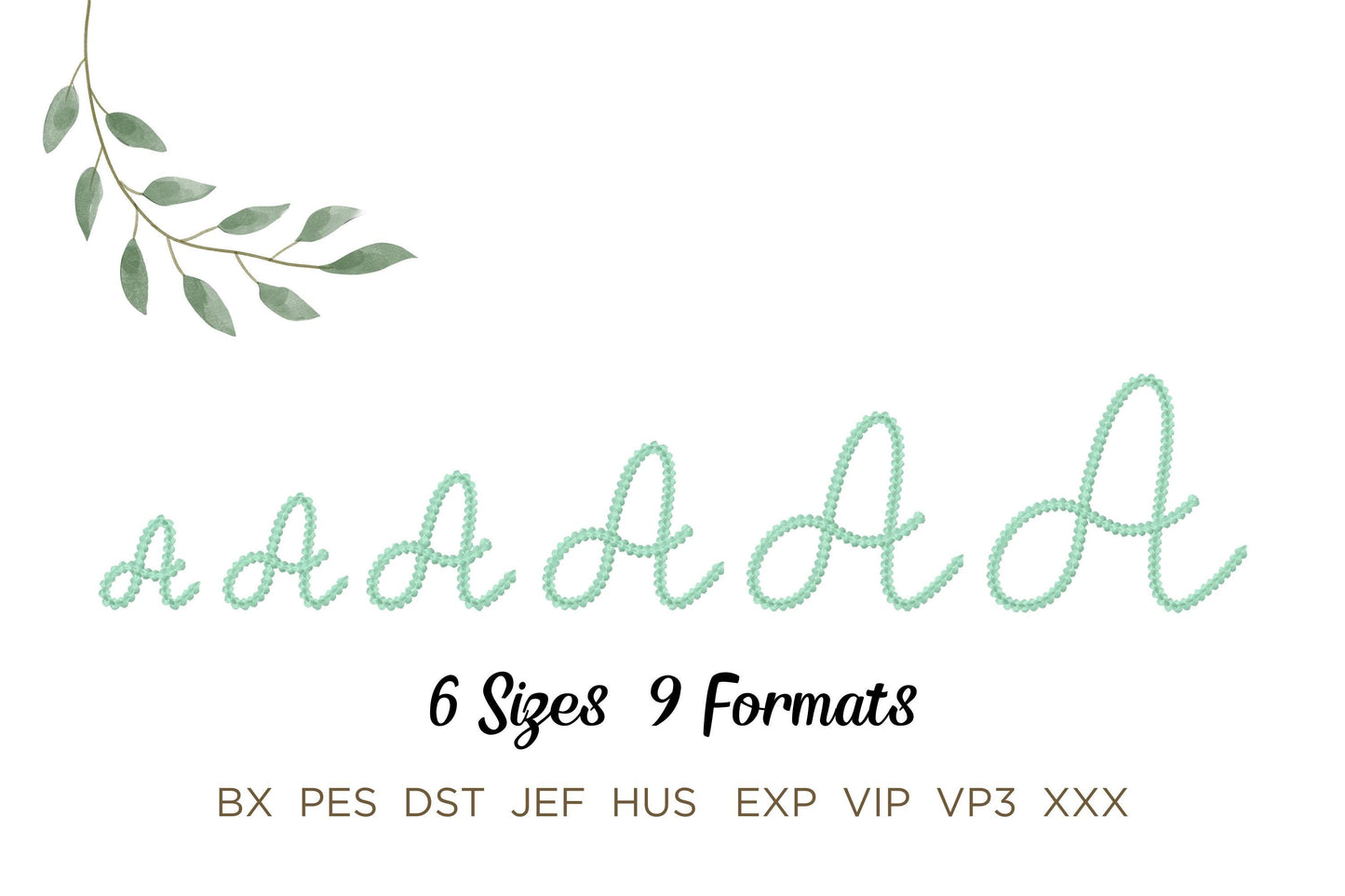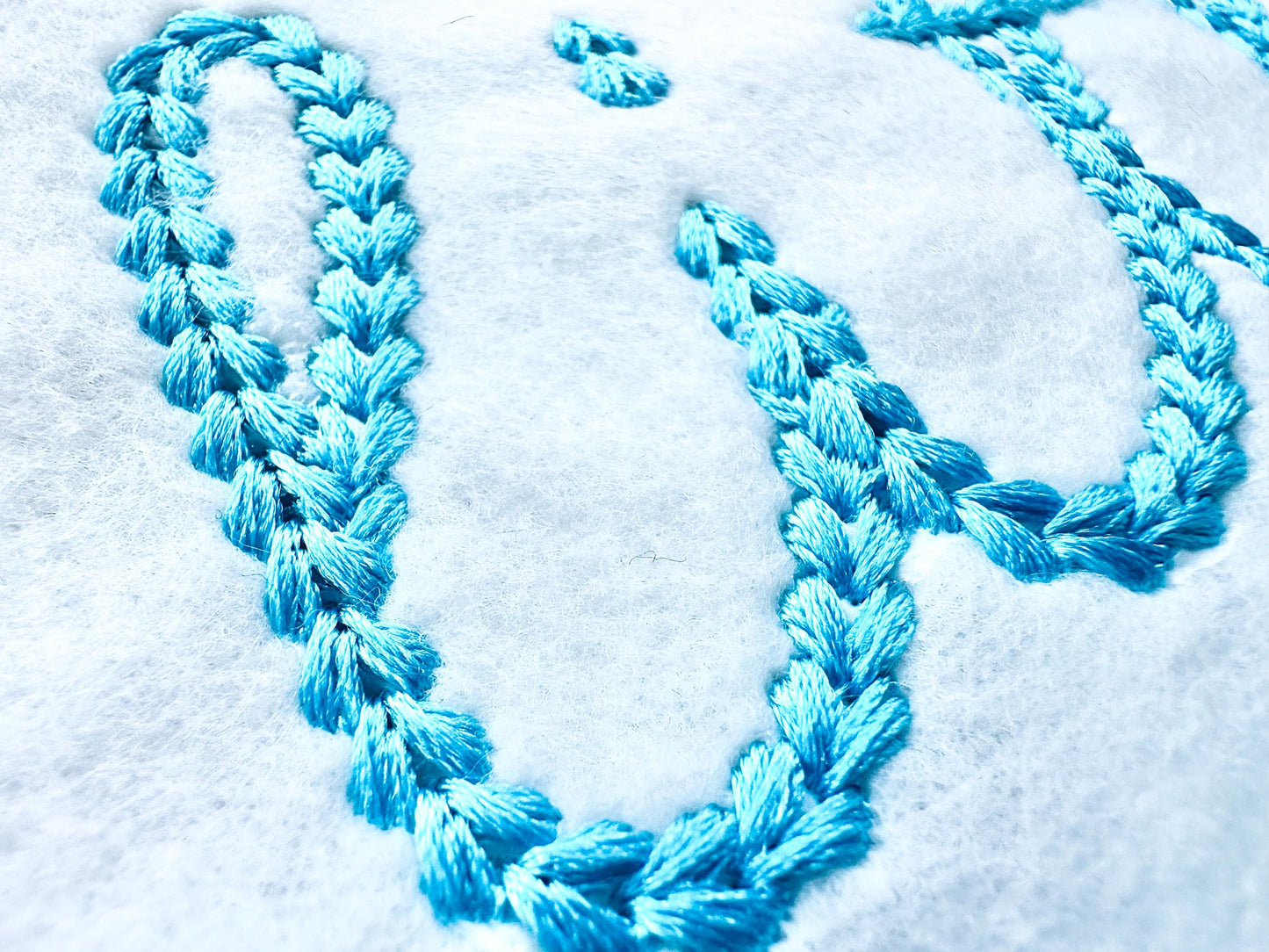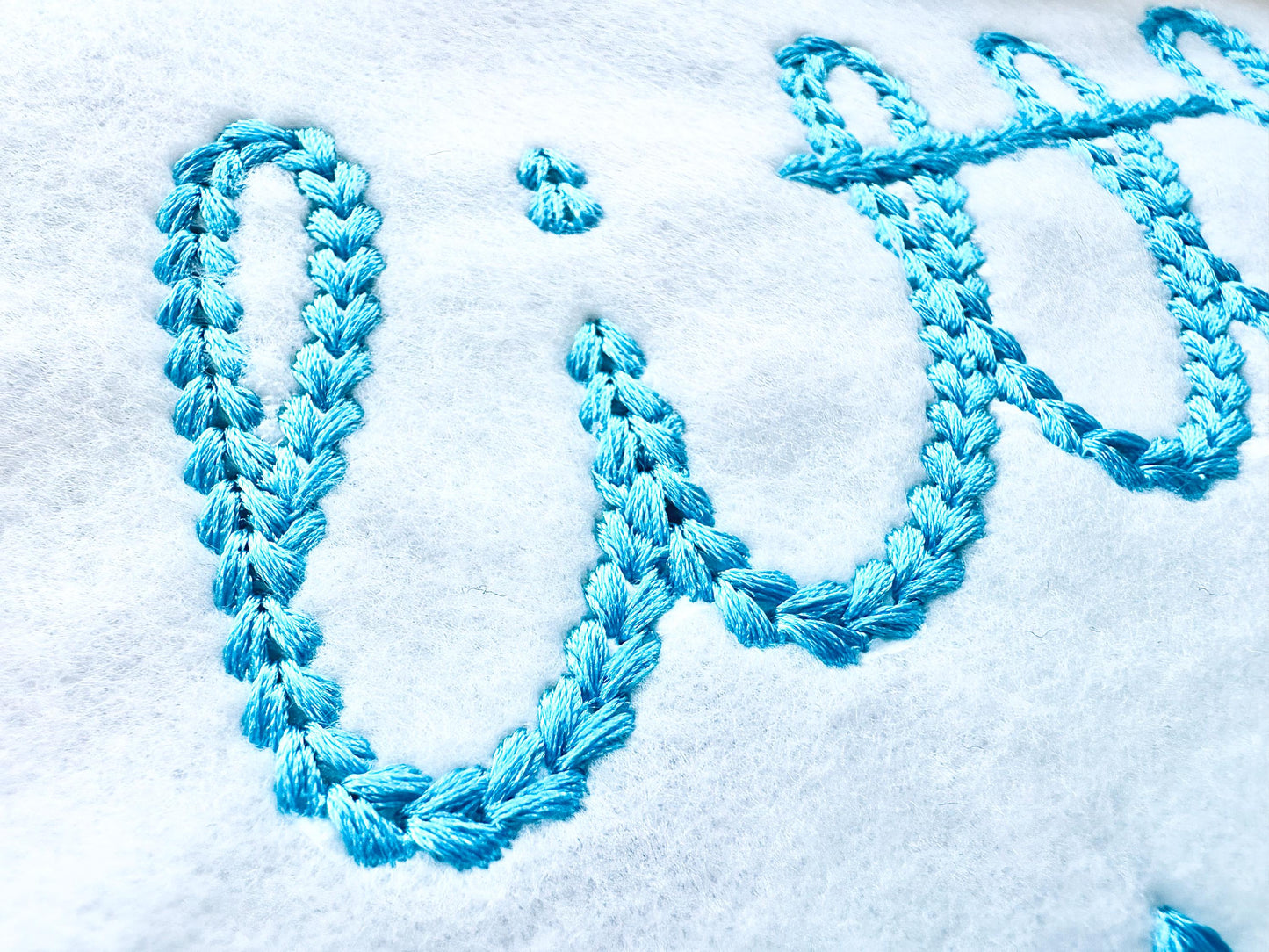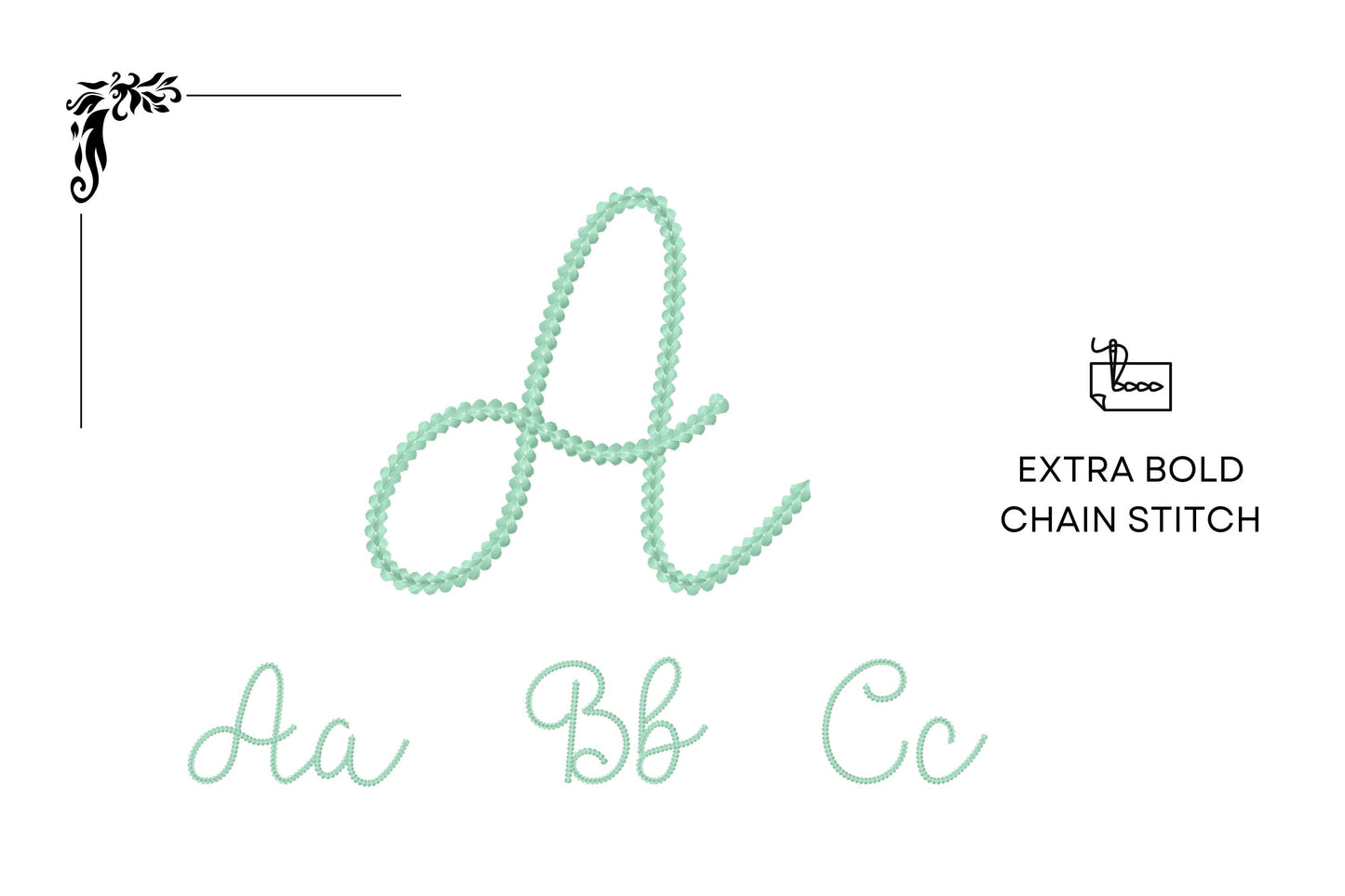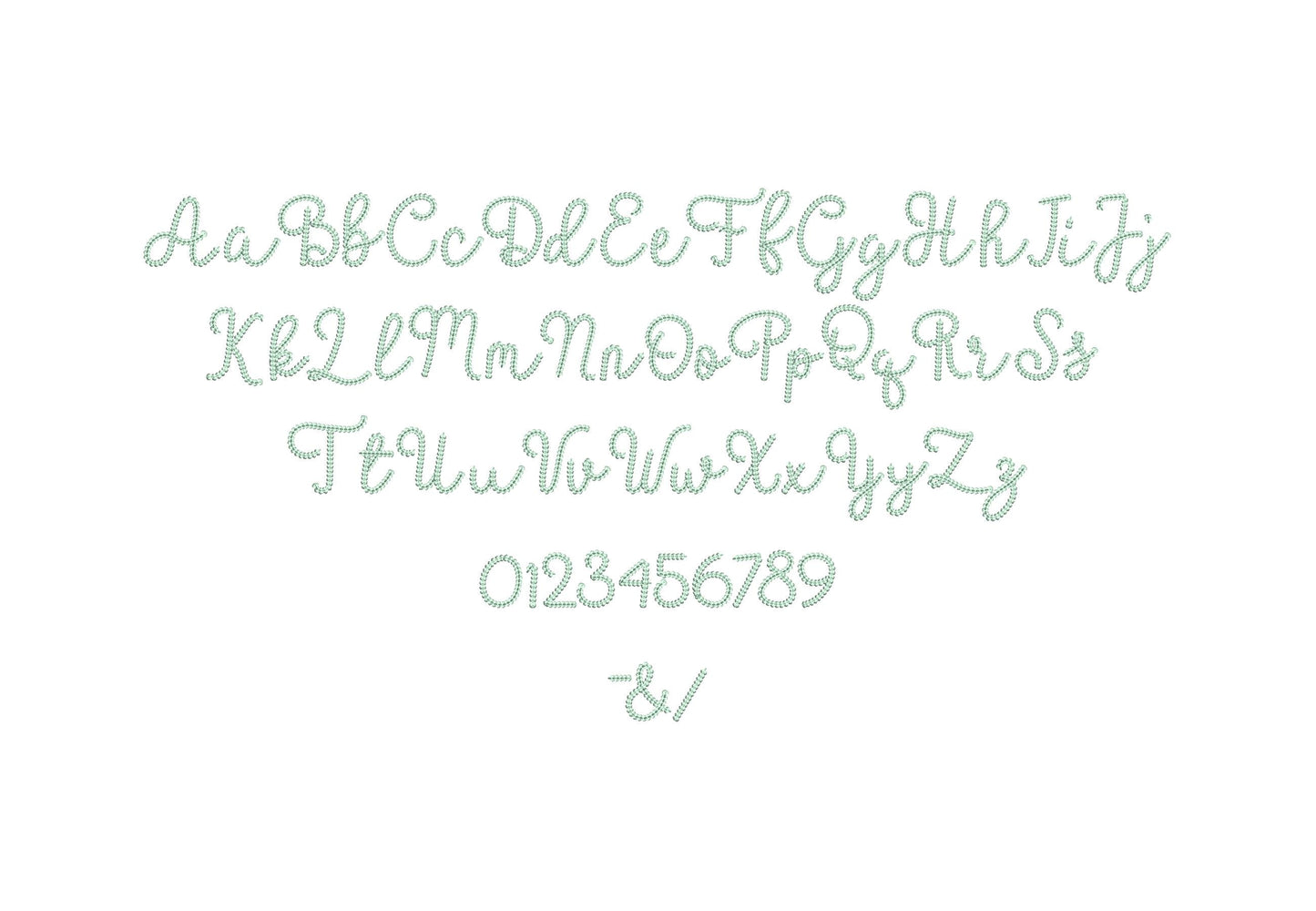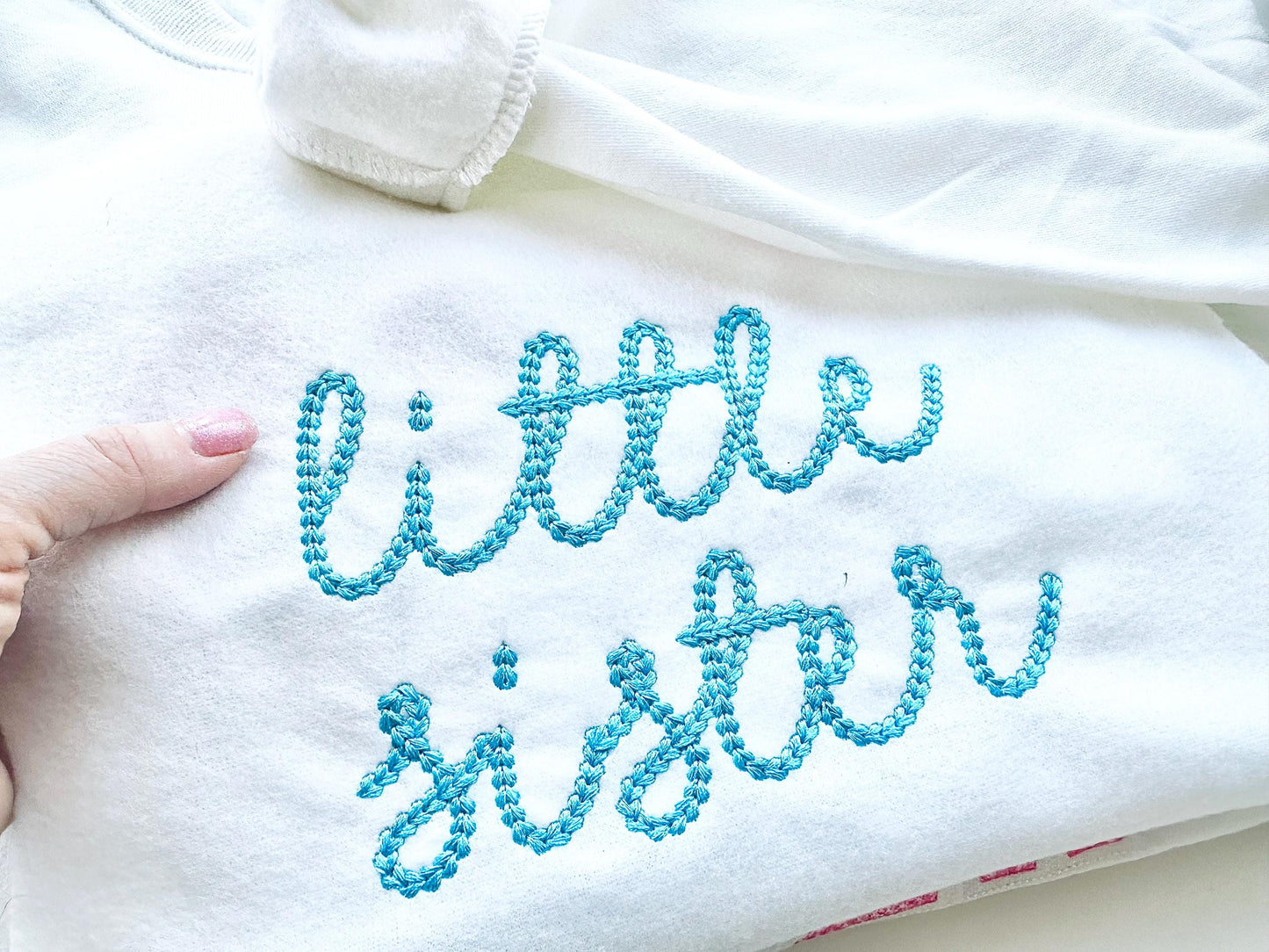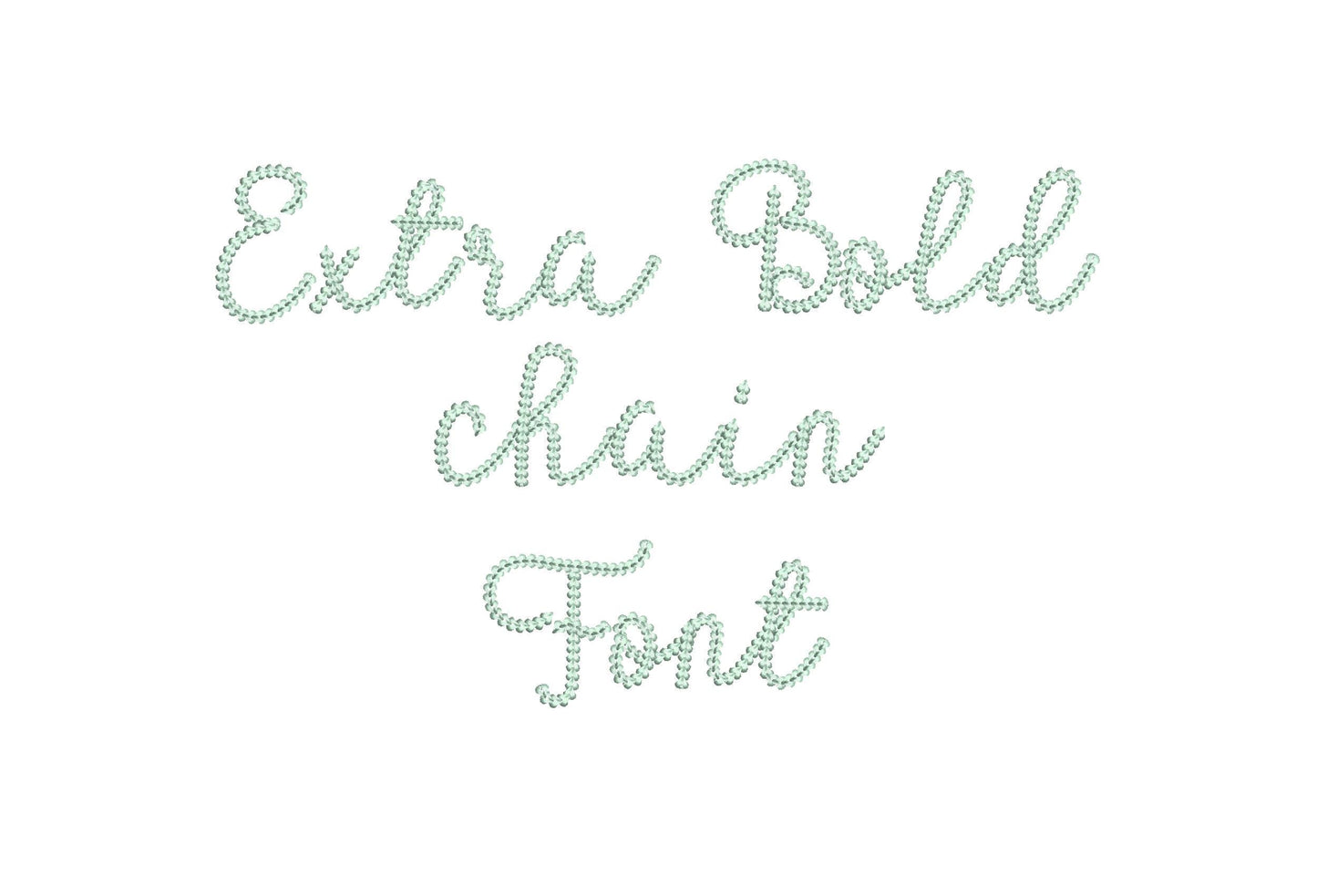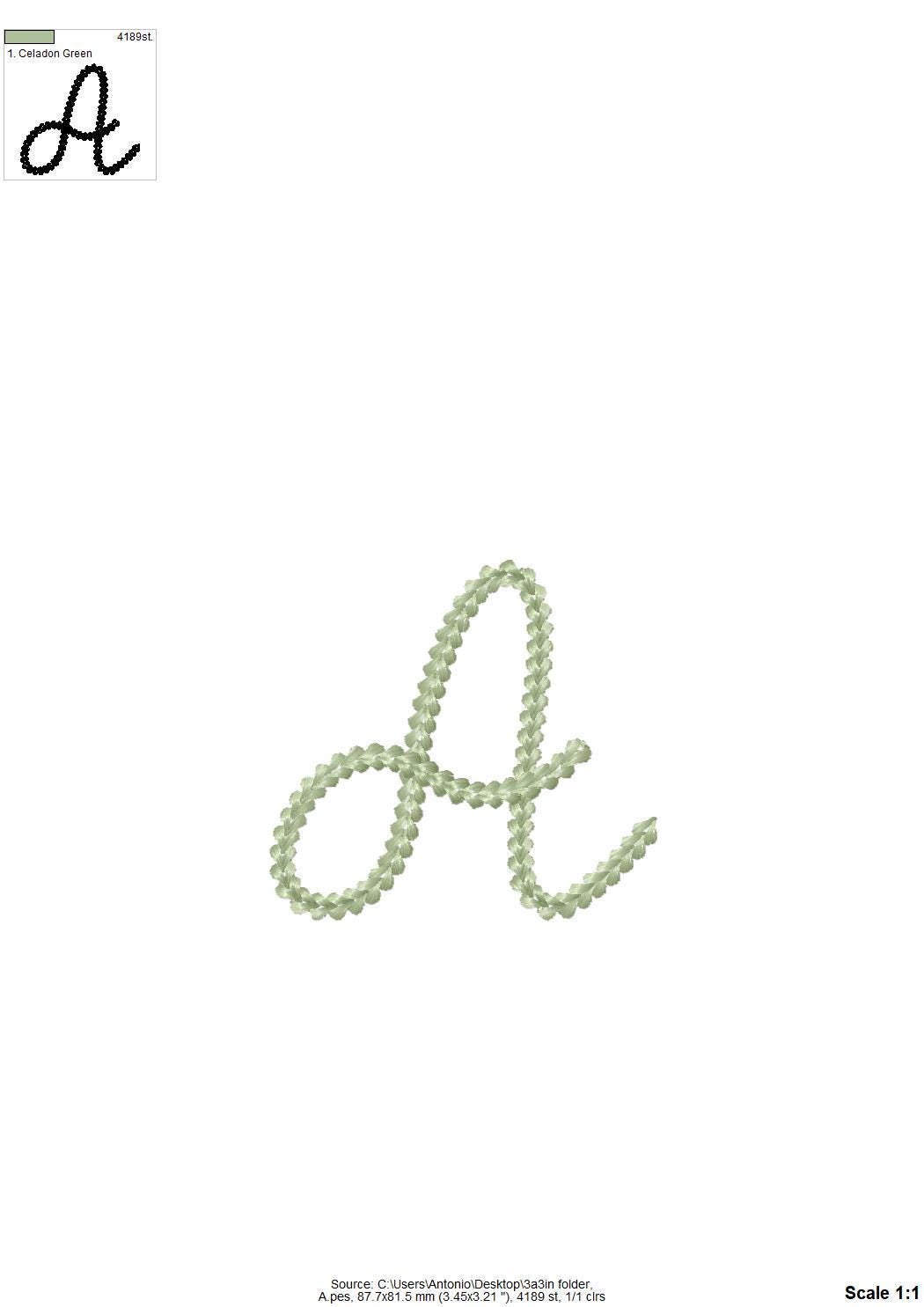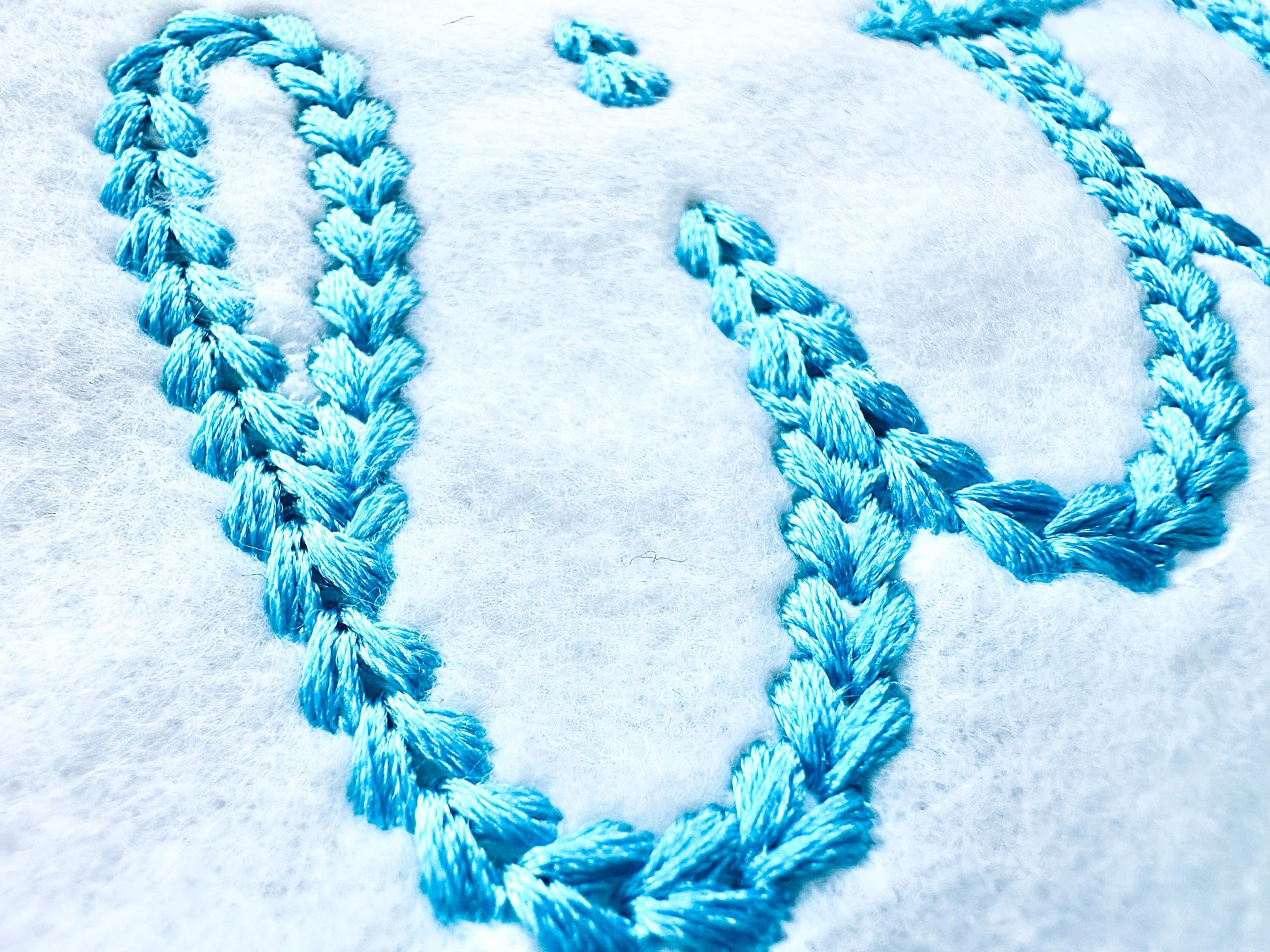
Or click to open the linkAn extra bold chain stitch script with a hand-knit look. Lovely for names and words on sweaters, sweatshirts, hats and blankets.
Uppercase and lowercase letters, numbers 0 to 9, an ampersand, dash and slash. Six sizes: 1.8, 2.3, 2.8, 3.3, 3.9 and 4.6 inches.